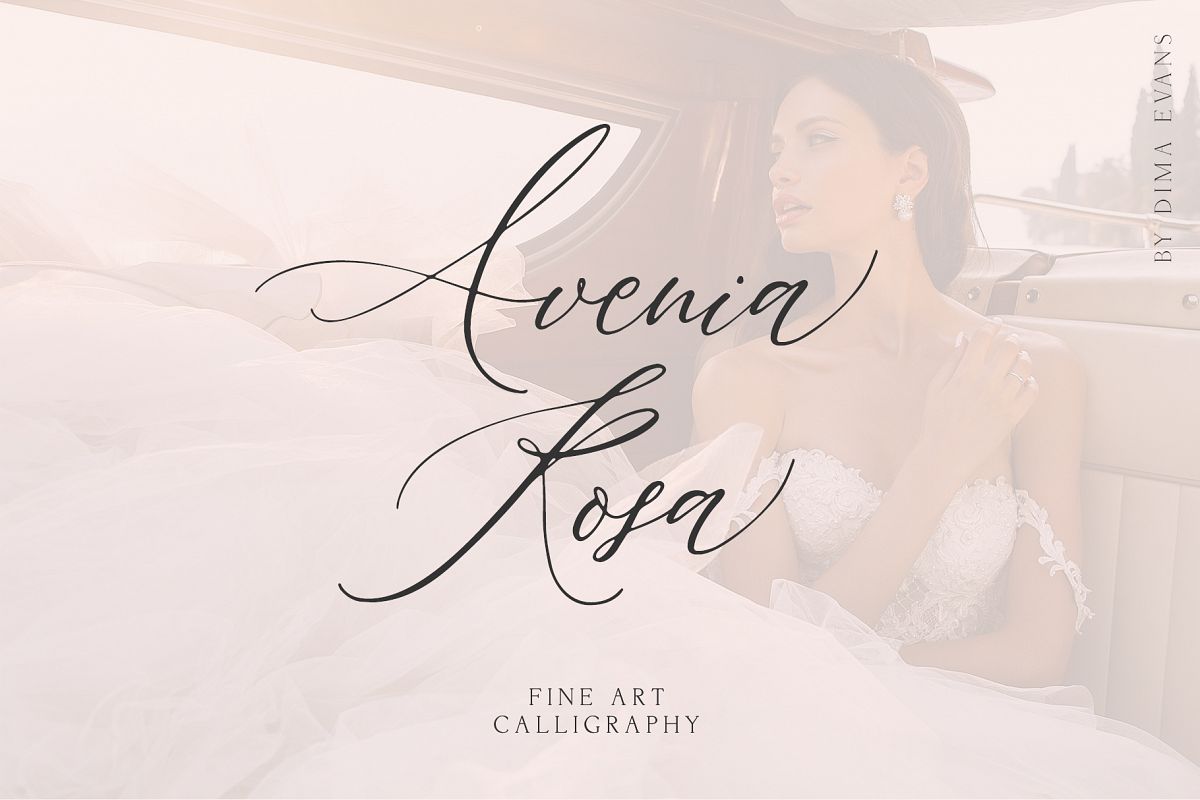
AVENIA FINE handwritten font
It is a modern calligraphic font with exquisite accents. It is perfect for branding, wedding invitations and invitation cards and many more
Font includes a full set of gorgeous uppercase and lowercase letters, numbers, a large selection of punctuation marks and ligatures.
• Support ALL European Languages